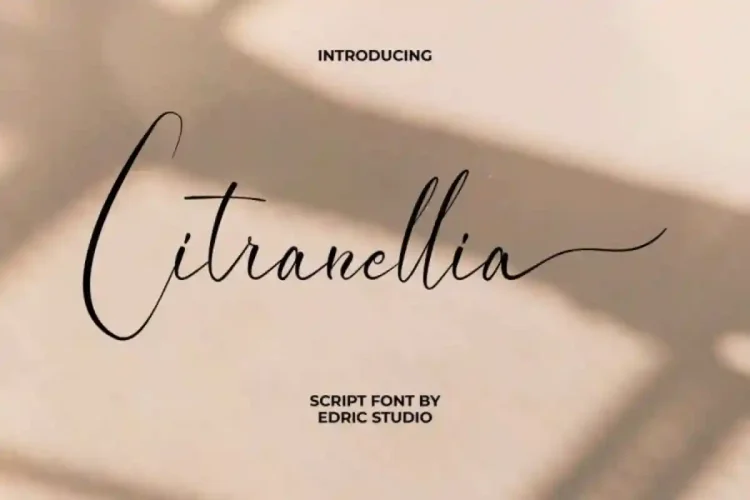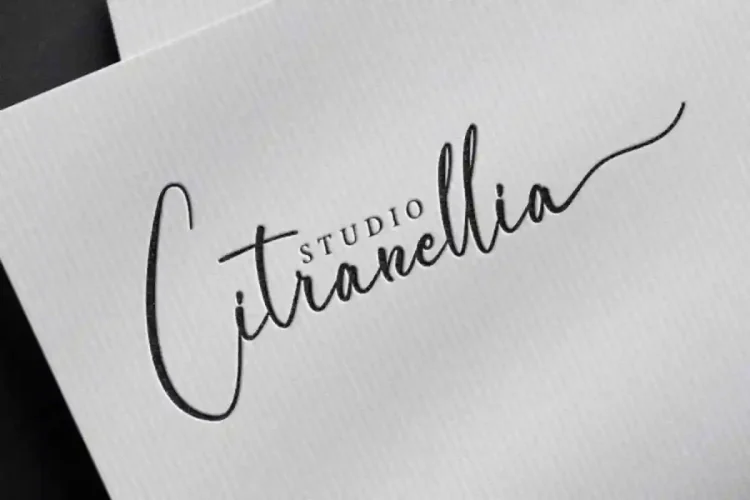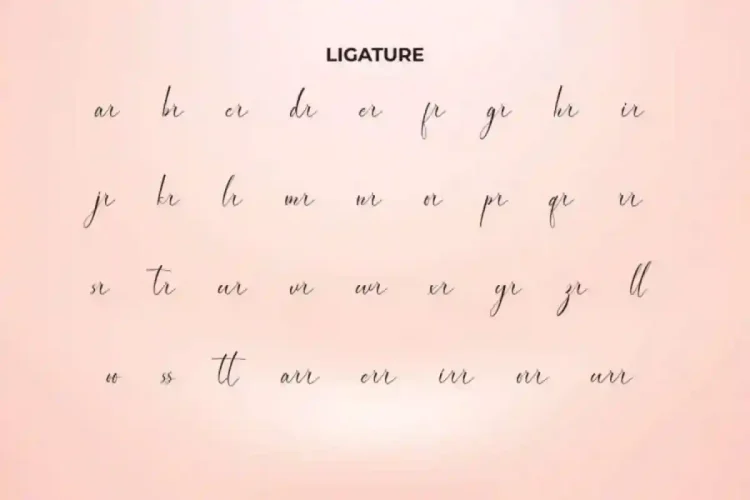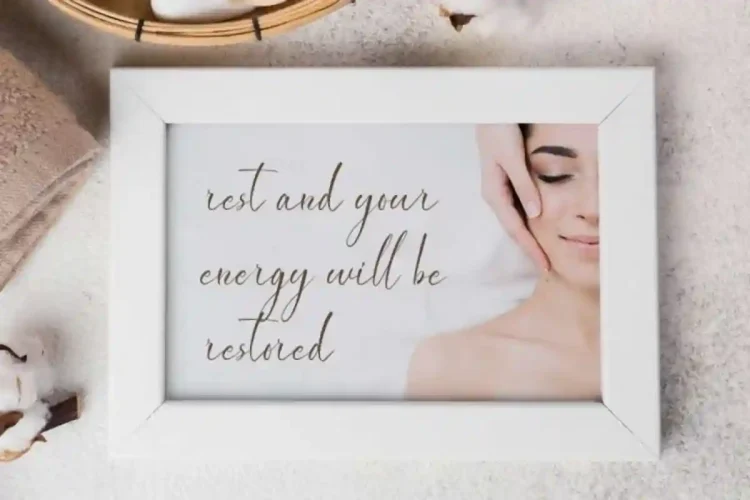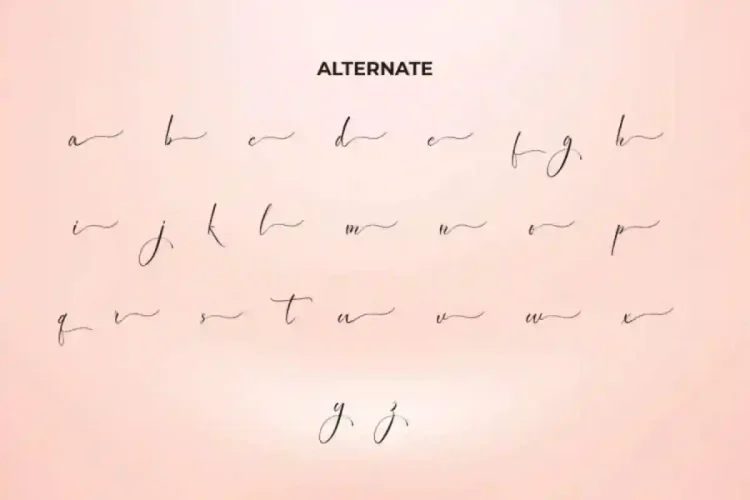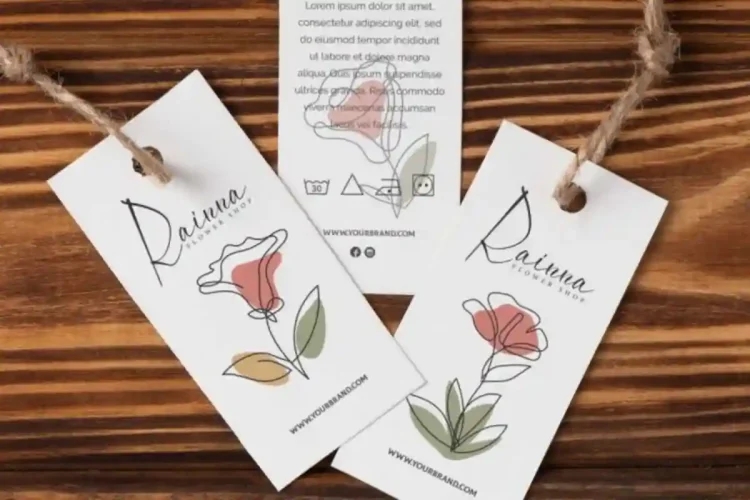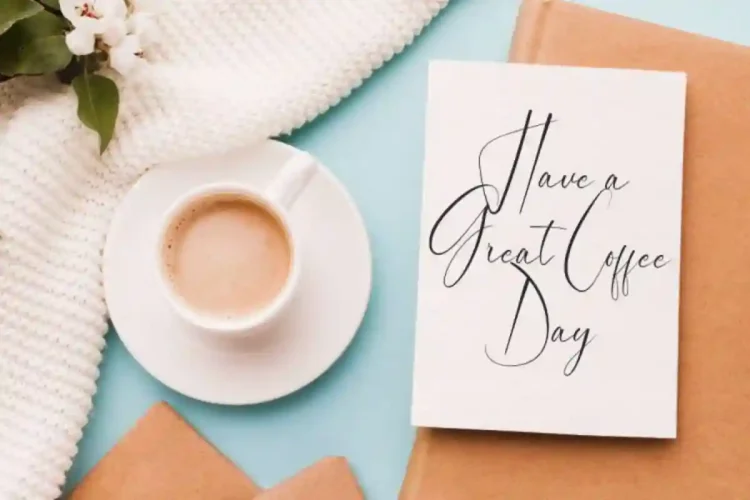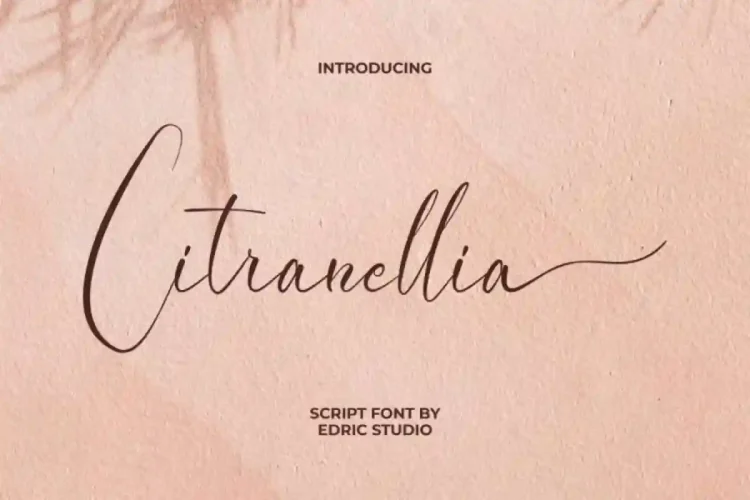
Citranellia Script Font is a stunning handwriting signature script font that brings elegance vibes to any of your designs. With its graceful curves, perfect thinness, and easy readability, this font brings an elegant and sophisticated touch to any project.
Citranellia Script Font comes with a full set of Uppercase and Lowercase Basic Characters, Number, a large range of Punctuation and Symbol. It has a stunning characters set, perfectly managed with well spaced and kerning. Citranellia Script Font will be great for any projects (with extended license) including : brochure, label, mockup design, packaging design, quotes, stationery, title, etc.